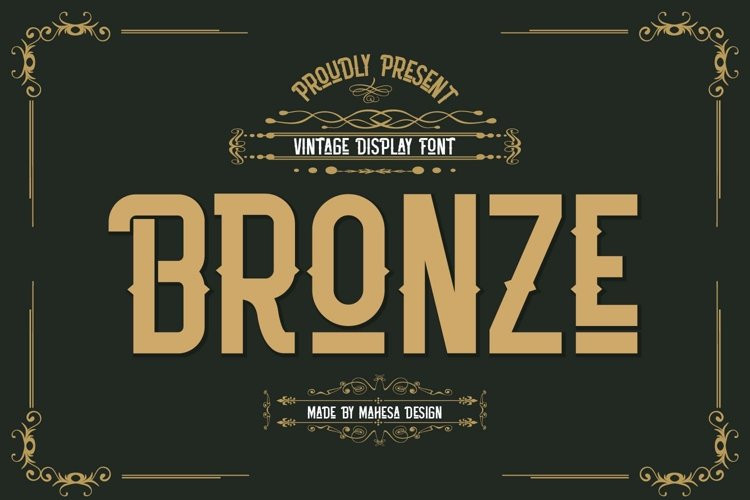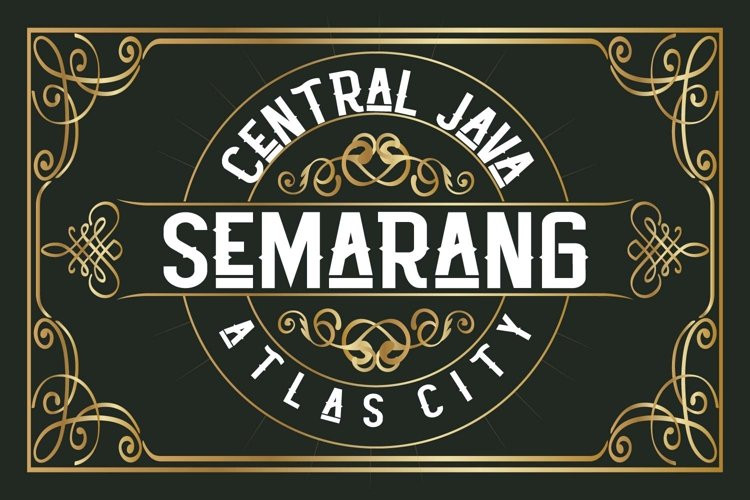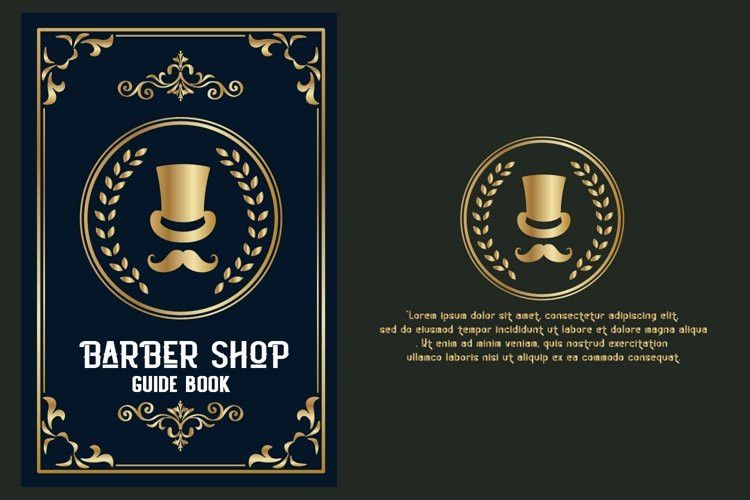
Bronze Font
Bronze FontThis vintage font is called ‘Bronze’. The combination of class and a nostalgic, retro feel make this font a true standout. It’s inspired by old-school caps and labels, and will turn any design project into a historical masterpiece.